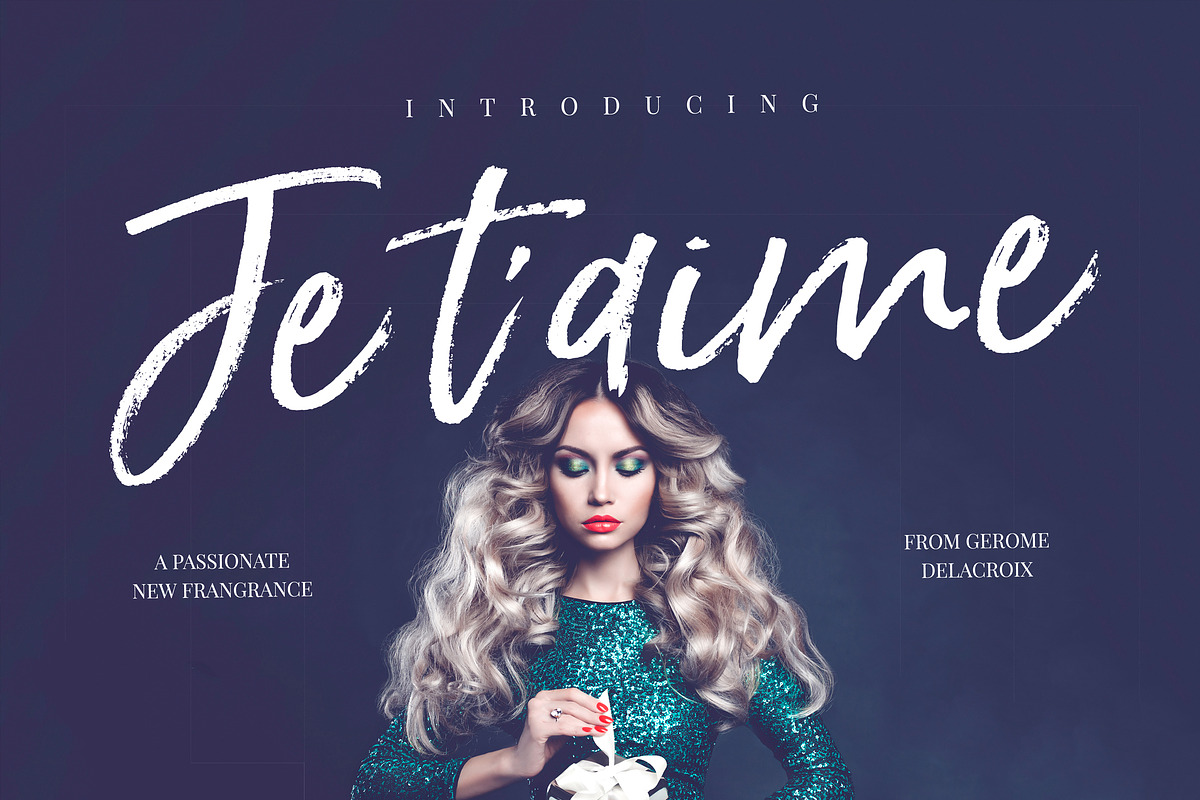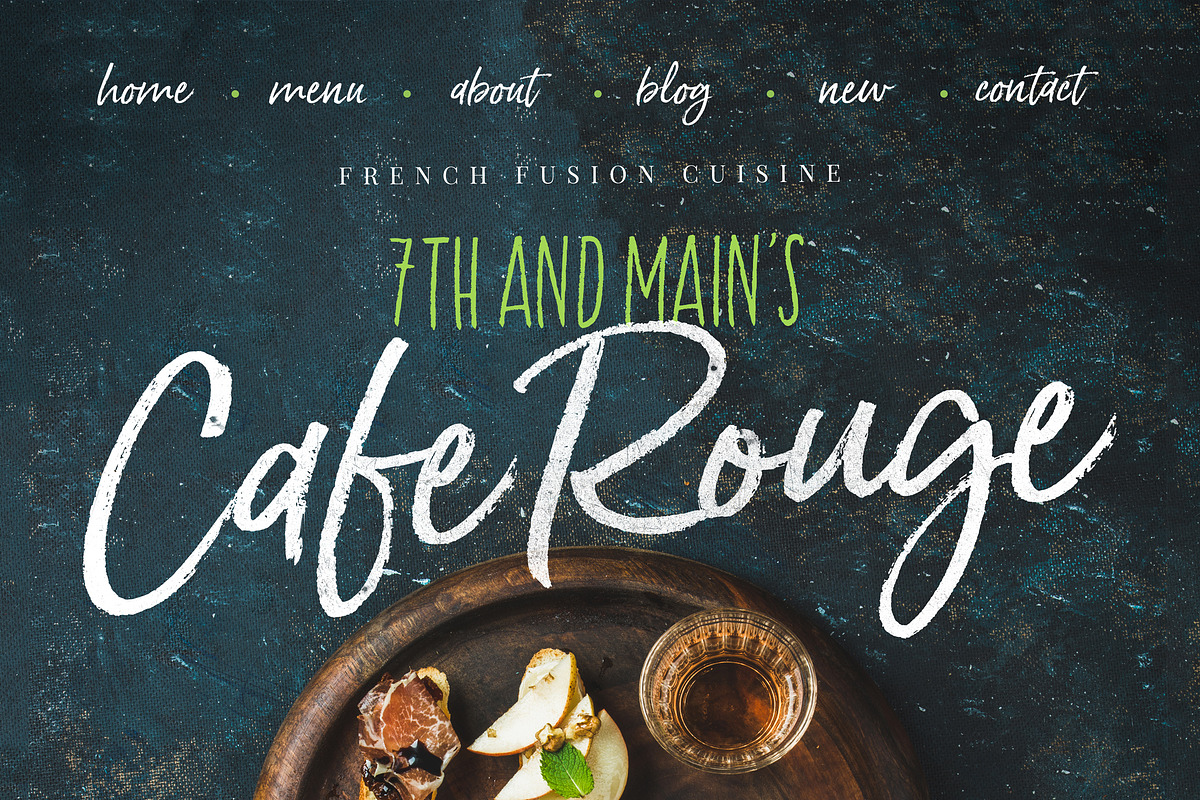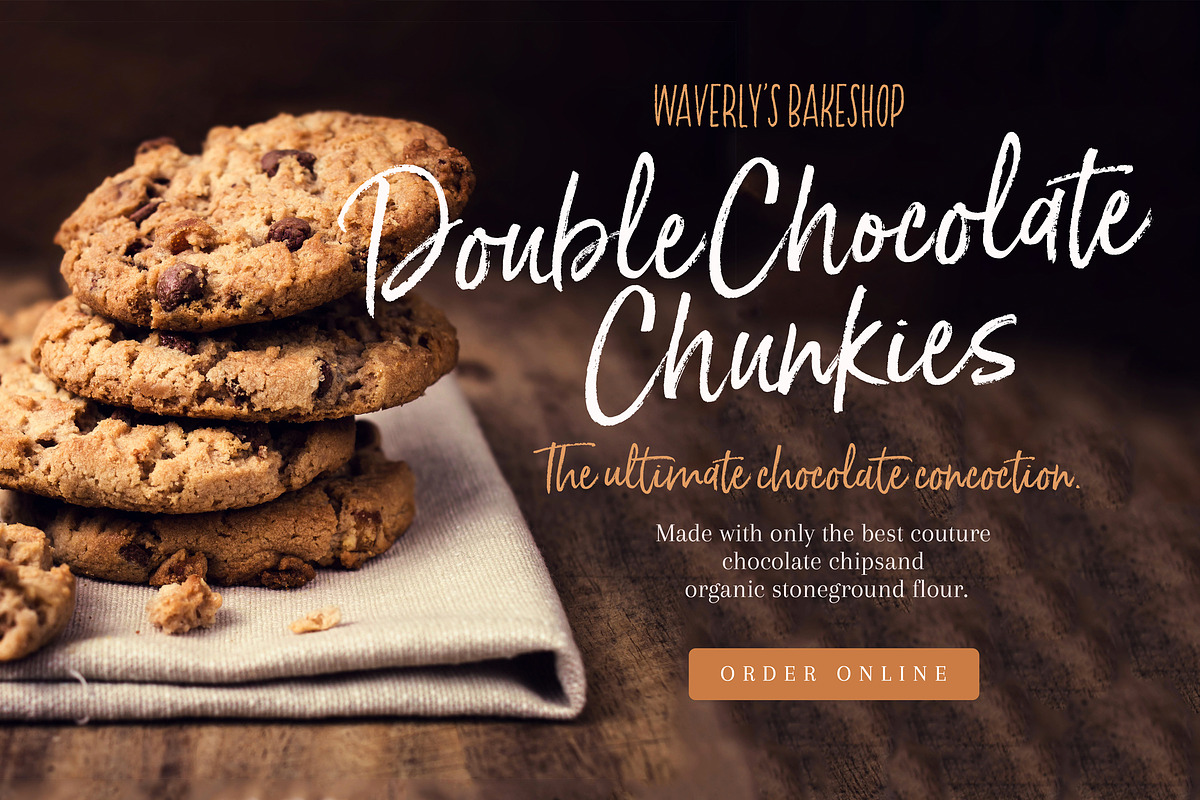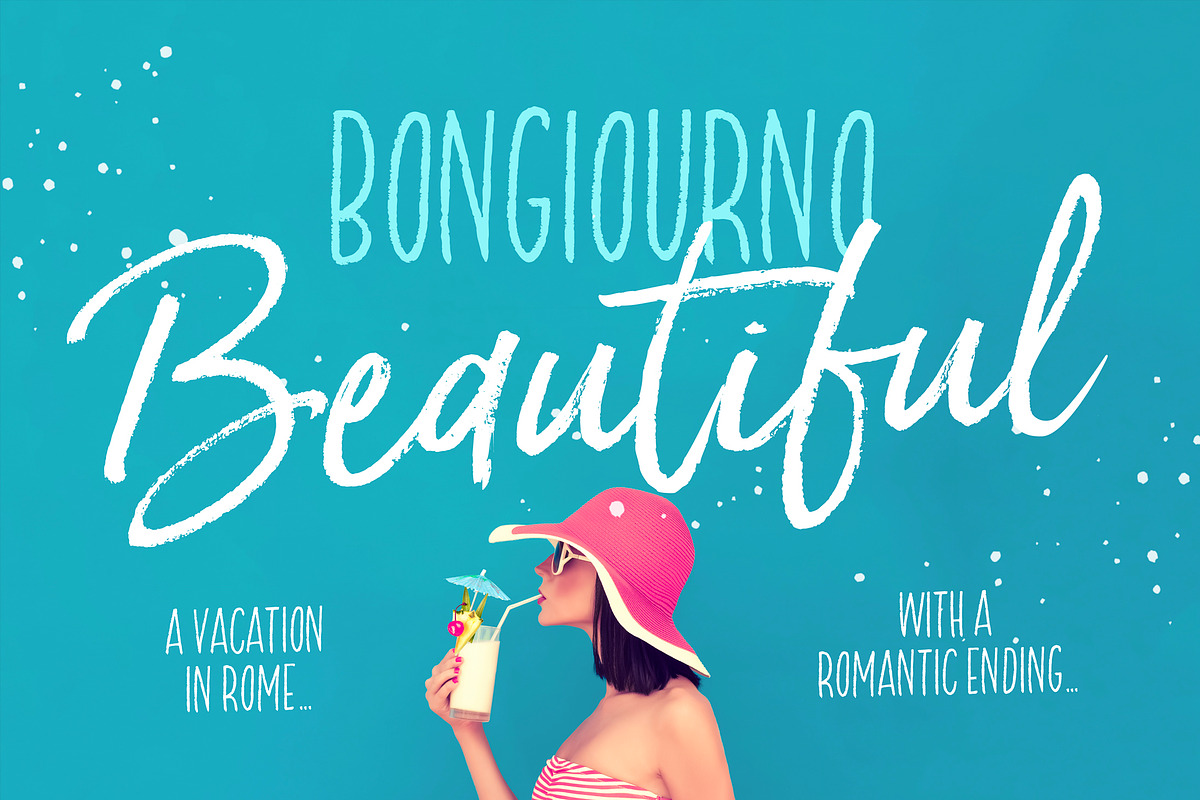
Born Ready Marker Font
Born Ready Marker Font by Nicky Laatz is a font selected for branding, posters, packaging, typography.
- A handy set of alternate lowercase letters lets you get the perfect look you need for your design.
Why Born Ready Marker Font is worth a look
Born Ready Marker Font by Nicky Laatz fits naturally into Branding, posters, packaging, typography.